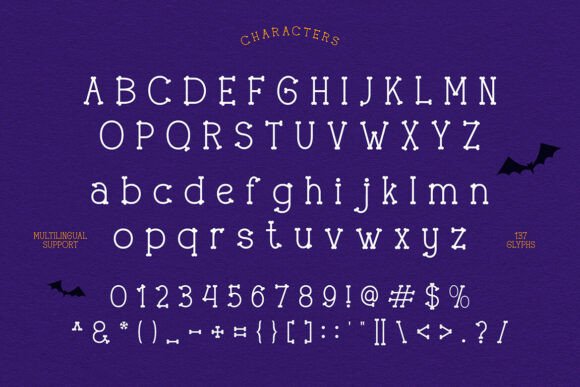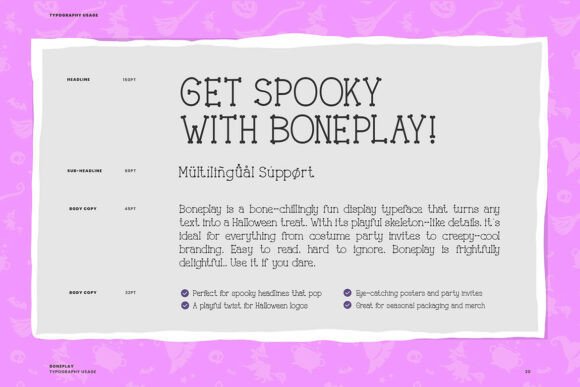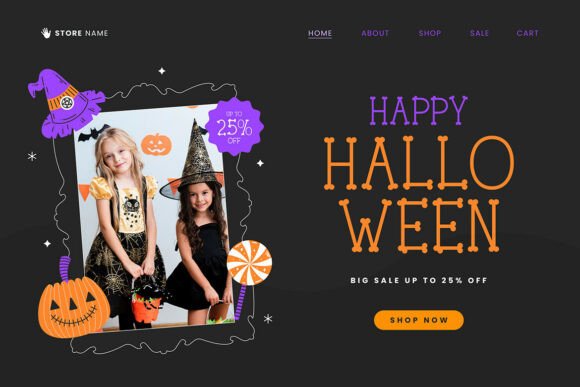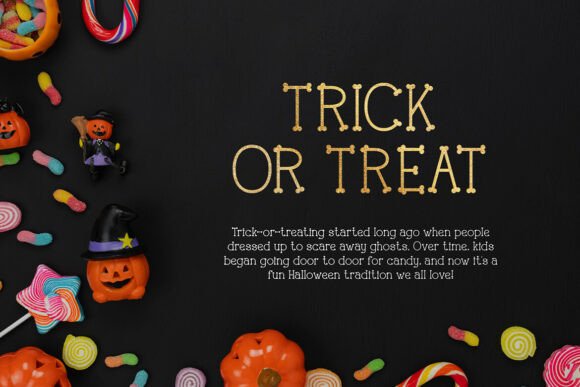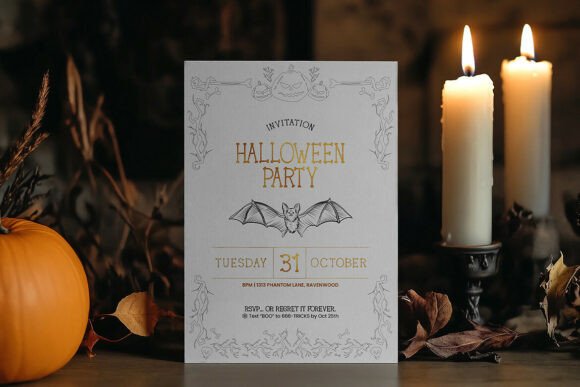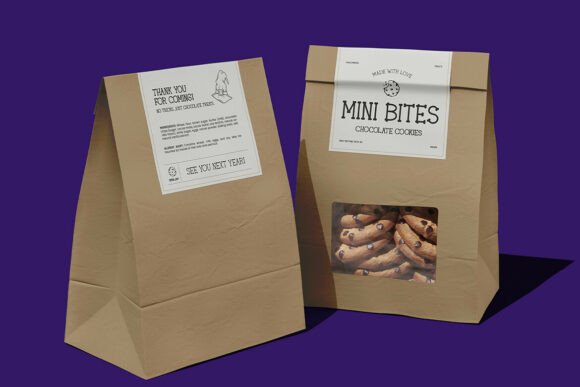
Boneplay Font: The Ultimate Choice for Spooky and Fun Halloween Projects
As the spookiest time of the year approaches, designers and crafters are on the lookout for the perfect font to add a touch of eeriness and fun to their Halloween projects. If you’re searching for a font that strikes the right balance between creepiness and charm, look no further than Boneplay Font. In this article, we’ll dive into the world of Boneplay, exploring its unique features, uses, and benefits for your Halloween designs.
What is Boneplay Font?
Boneplay Font is a playful yet spooky Halloween display font designed specifically for eerie, festive, and frightfully fun projects. With its quirky curves and horror-inspired styling, it’s the perfect addition to any design that requires a touch of Halloween magic. Whether you’re working on a party invitation, film title, trick-or-treat packaging, scary poster, or spooky social media graphic, Boneplay Font is the ideal choice.
Unique Features of Boneplay Font
So, what sets Boneplay Font apart from other Halloween fonts? Here are a few of its unique features:
- Quirky Curves: Boneplay Font boasts quirky curves that add a playful touch to your designs. Its irregular shapes and lines create a sense of whimsy, making it perfect for kids’ events or family-friendly horror themes.
- Horror-Inspired Styling: With its horror-inspired styling, Boneplay Font is sure to send chills down the spine. Its bold and edgy design makes it ideal for scary posters, horror movie titles, and other spooky projects.
- Balance of Creepiness and Charm: Boneplay Font strikes the perfect balance between creepiness and charm. It’s not too scary, nor too sweet – it’s just right. This balance makes it suitable for a wide range of projects, from kids’ parties to horror movie promotions.
Uses for Boneplay Font
Boneplay Font is a versatile font that can be used for a variety of Halloween projects, including:
- Halloween Party Invitations: Create spooky and fun invitations for your Halloween party with Boneplay Font. Its quirky curves and horror-inspired styling will set the tone for a thrilling celebration.
- Film Titles: Add a touch of horror and suspense to your film titles with Boneplay Font. Its bold and edgy design makes it perfect for horror movie promotions.
- Trick-or-Treat Packaging: Make your trick-or-treat packaging stand out with Boneplay Font. Its playful and spooky design will delight kids and adults alike.
- Scary Posters: Create eye-catching scary posters with Boneplay Font. Its horror-inspired styling will grab attention and send chills down the spine.
- Spooky Social Media Graphics: Add a touch of Halloween magic to your social media graphics with Boneplay Font. Its quirky curves and bold design make it perfect for creating engaging and spooky graphics.
Boneplay Font offers several benefits for designers and crafters, including:
- Easy to Read: Despite its quirky curves and horror-inspired styling, Boneplay Font is easy to read. Its clear and legible design makes it perfect for a wide range of projects.
- Versatile: Boneplay Font is a versatile font that can be used for a variety of projects, from kids’ events to horror movie promotions.
- Time-Saving: With Boneplay Font, you can save time and effort on designing your Halloween projects. Its unique features and bold design make it easy to create engaging and spooky graphics.
In conclusion, Boneplay Font is the ultimate choice for spooky and fun Halloween projects. Its quirky curves, horror-inspired styling, and balance of creepiness and charm make it perfect for a wide range of designs. Whether you’re a designer or crafter, Boneplay Font is a must-have for your Halloween projects. So, download Boneplay Font today and add a touch of Halloween magic to your designs!